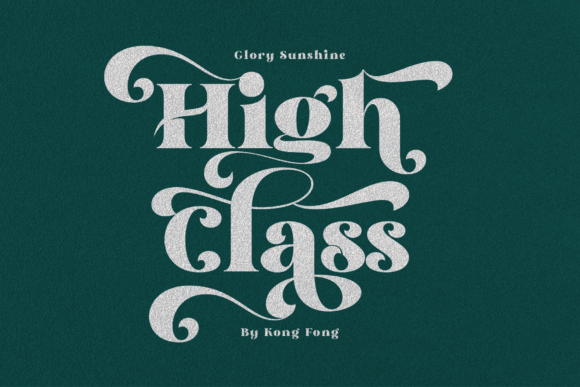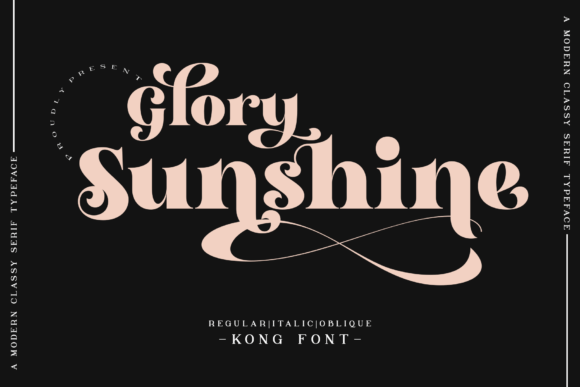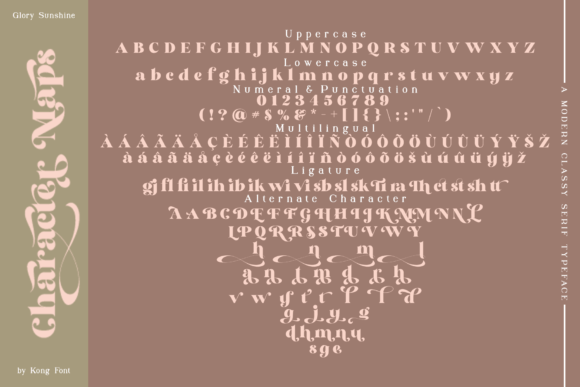
Glory Sunshine Font
Glory Sunshine is a modern and playful handwritten script font. It’s great for crafters and designers. Compatible with tools such as Photoshop and Silhouette design studio. its playfulness can make it great for creative projects.